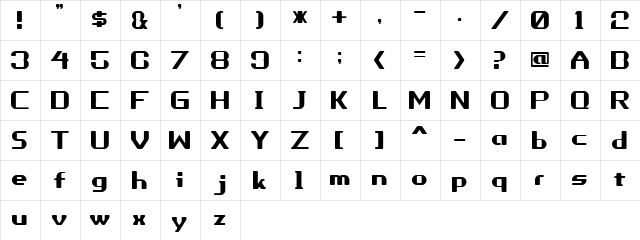
Porhythm Regular
Design Context for Porhythm Typeface
Porhythm takes a measured approach to typography — its balanced proportions and neutral character make it a reliable workhorse for both digital and print work.